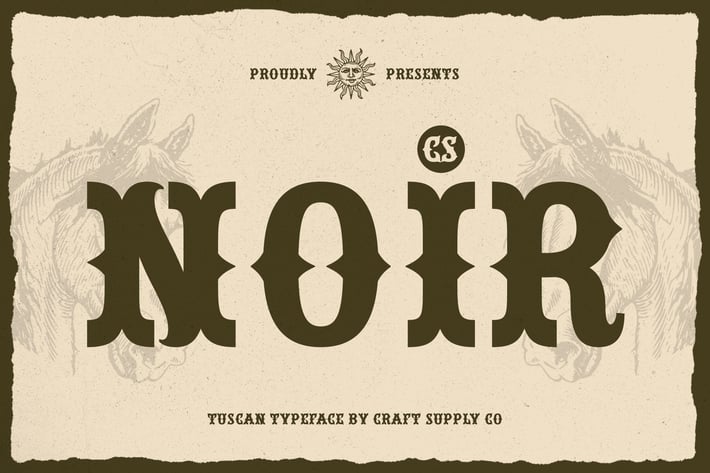
Noir – Tuscan Font
CS Noir – Elegant Tuscan Display Font
Vintage Elegance with a Bold Statement
CS Noir is a distinctive Tuscan display serif font, featuring bifurcated serifs, strong contrast, and intricate curves. Inspired by 19th-century typography, it delivers a bold yet refined presence, making it ideal for designs that require historical charm with a touch of sophistication.
Dramatic and Eye-Catching Appeal
With its high contrast strokes and ornate letterforms, CS Noir captures attention effortlessly. The decorative serifs and elegant curves add a sense of grandeur, perfect for projects seeking a vintage yet luxurious aesthetic. Whether used for headline typography, classic branding, or artistic compositions, this font commands presence with its striking and dramatic style.
Versatile for Retro and Luxury Designs
CS Noir’s classic Tuscan characteristics make it highly versatile for signage, branding, editorial layouts, and premium packaging. Its bold yet sophisticated design suits everything from high-end fashion labels and luxury logos to theatrical posters and historical-inspired projects, ensuring a refined and timeless appeal.
A Perfect Blend of Tradition and Modern Use
While deeply rooted in classic typography, CS Noir also adapts beautifully to modern design trends. Its ornamental yet structured letterforms provide a unique balance between vintage aesthetics and contemporary elegance, making it a perfect choice for designers looking to create memorable, expressive, and visually captivating typography.